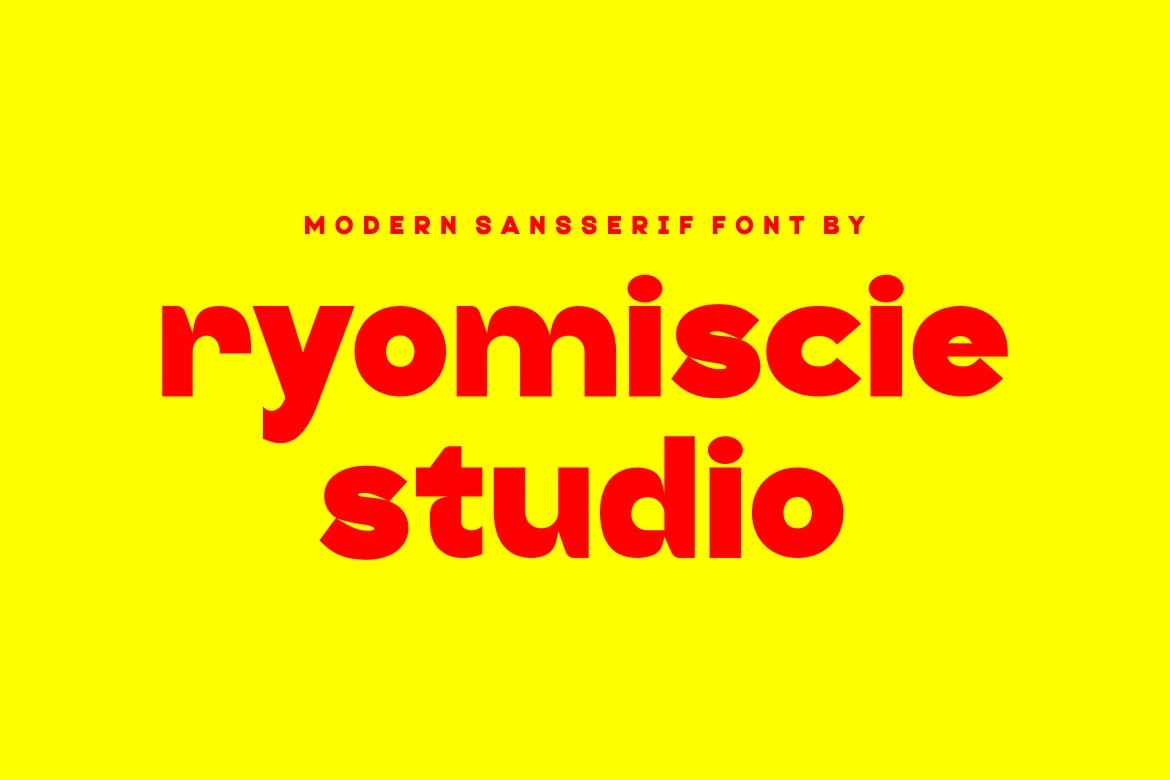
Box Man – Modern Font
Box Man Font – Modern Font is a bold and authentic display typeface. It’s perfect for a wide range of branding projects such as logos, t-shirt printing, esports, and more. Its strong presence makes it stand out in various contexts.
Box Man Modern Sans Serif Font
Box Man - Modern Font